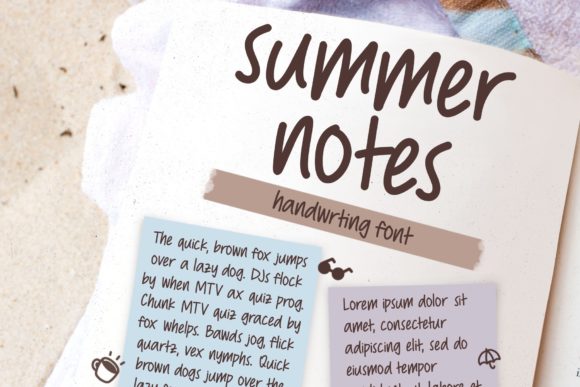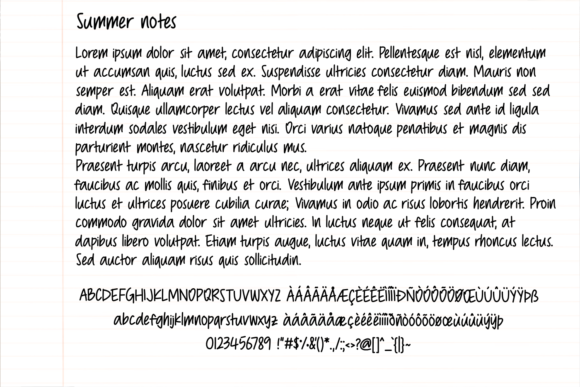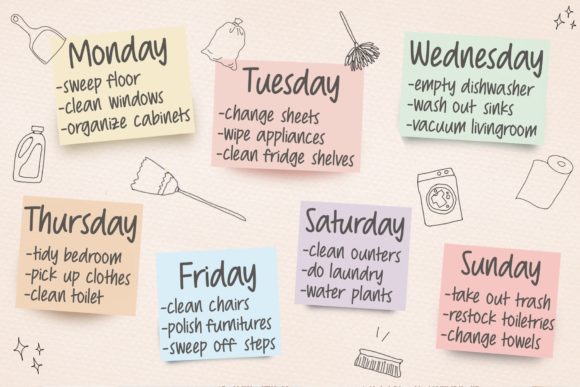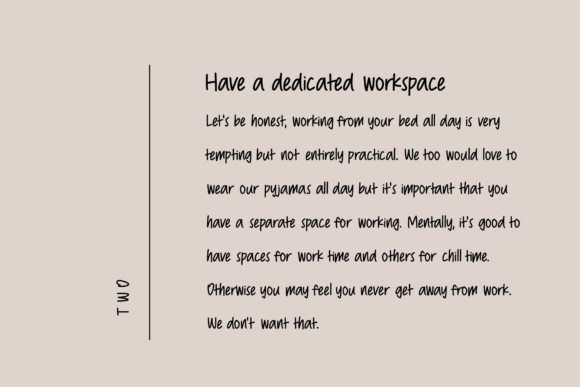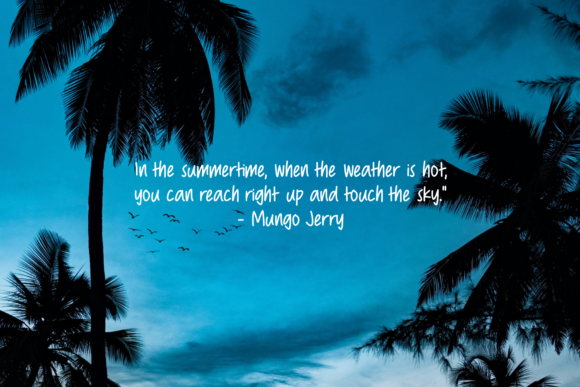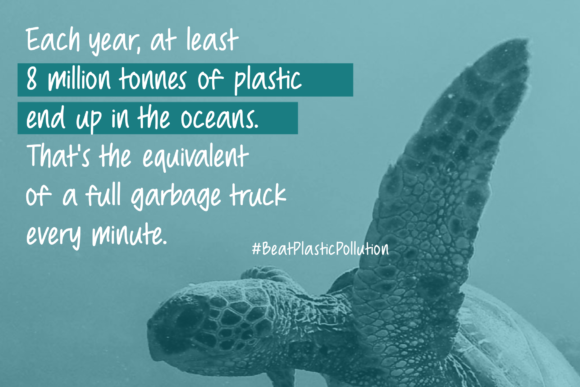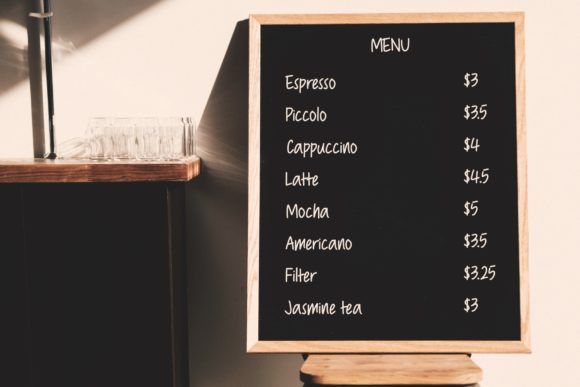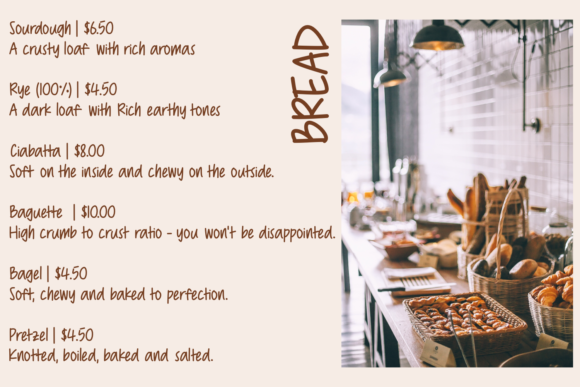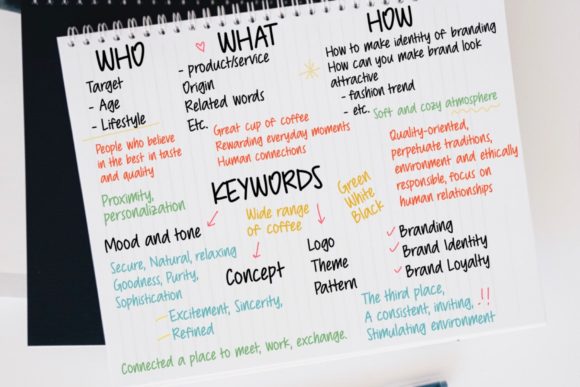
Summer Notes Font
Summer Notes is a simple and flexible handwritten font, that can be used for all chalkboard quotes or teaching material! Its authentic handwritten look and feel will add a personal and realistic feel to your designs.